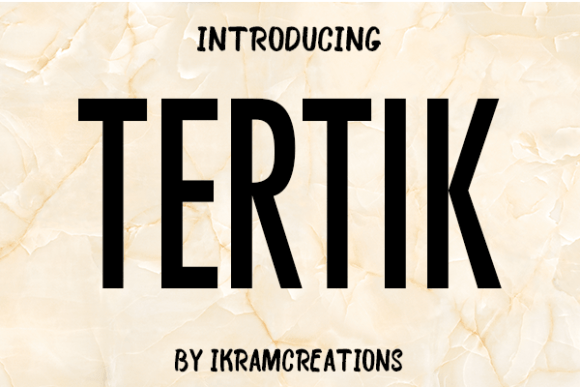
Tertik Font
Unleash the beauty of nature in your designs with Tertik, the captivating sans serif font inspired by the serene landscapes of the world. This remarkable font, brought to life by the creative minds at IkramCreations, is a tribute to the organic forms found in nature, inviting you to infuse your projects with a sense of harmony and tranquility.
Tertik's clean and natural curves evoke the gentle flow of rivers, the delicate dance of leaves in the wind, and the timeless elegance of mountains. Each letter is meticulously crafted to reflect the essence of nature's elements, ensuring that your designs radiate a timeless charm that captivates and inspires.
With Tertik, you can create logos that resonate with the beauty of the outdoors, branding that reflects your commitment to sustainability, and quotes that inspire a deeper connection with the natural world. The unique and beautiful touch of each letter makes Tertik the perfect choice for designers seeking to create designs that come alive with authenticity and grace.
Embrace the power of nature-inspired typography with Tertik, a font that transcends trends and speaks to the soul. Its versatile nature makes it ideal for a wide range of projects, from elegant invitations to impactful social media posts. Elevate your designs to new heights and leave a lasting impression on your audience with Tertik, the font that captures the essence of nature's allure.